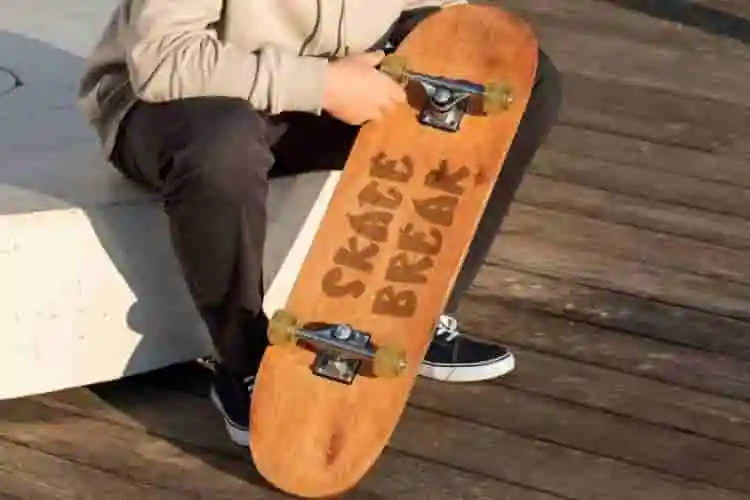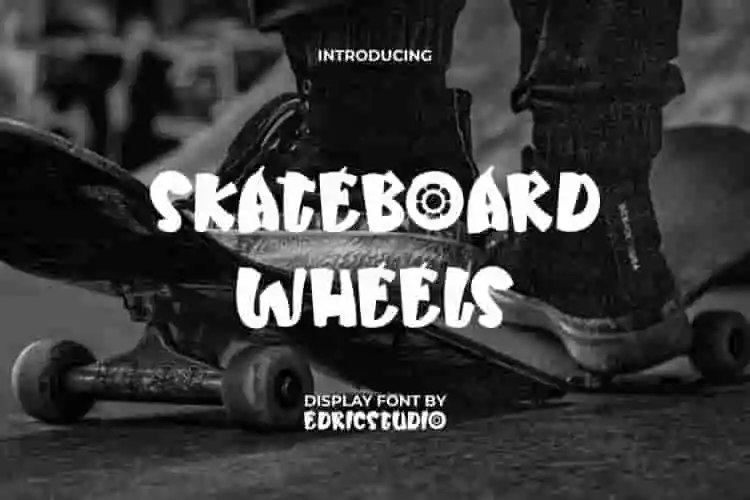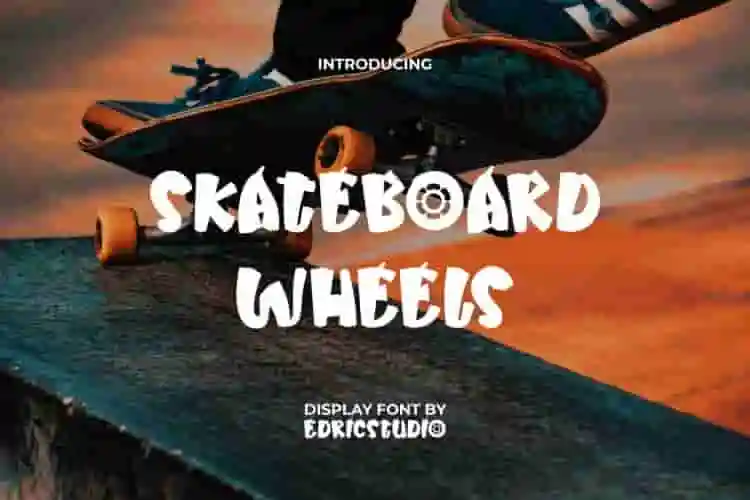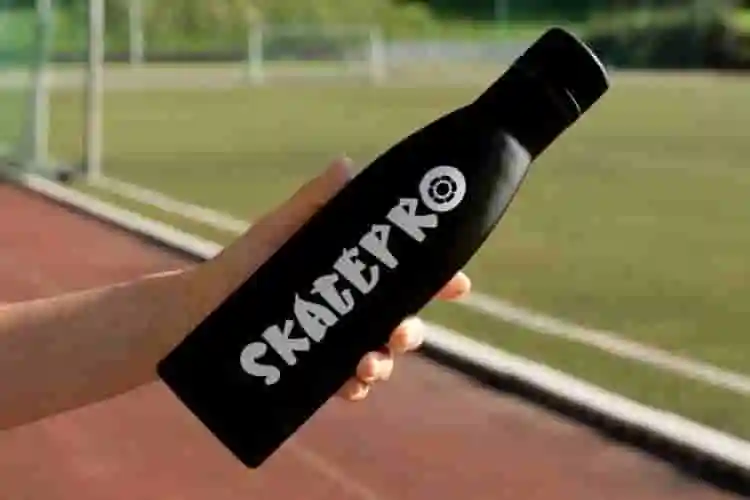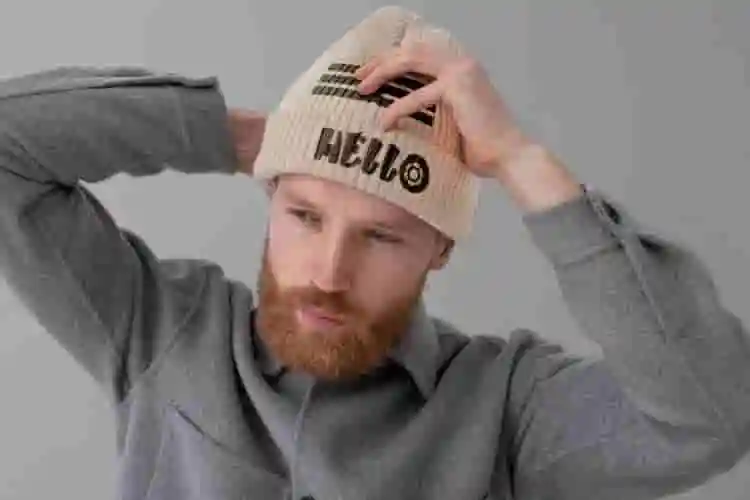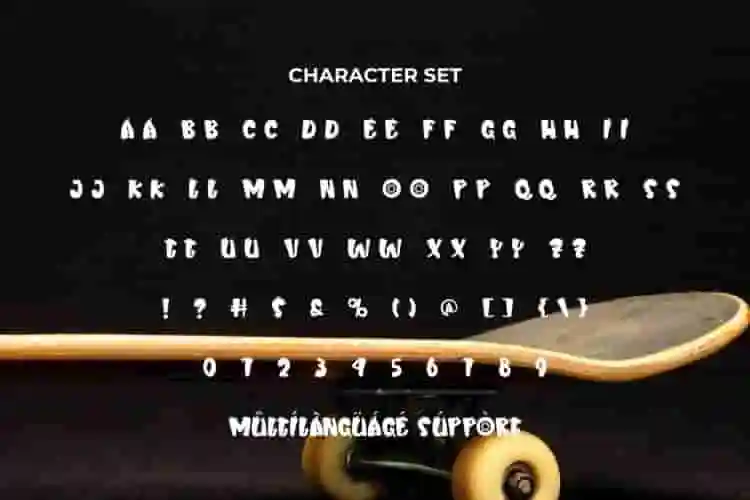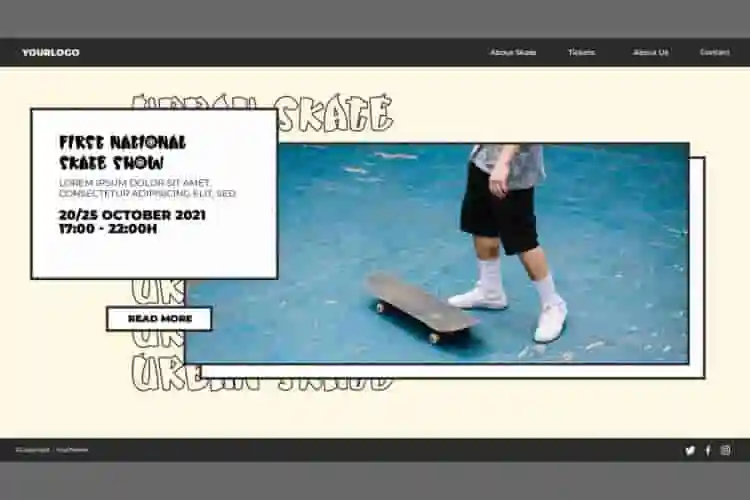
Skateboard Wheels Display Font
Skateboard Wheels Font is a cool decorative font with skateboarding theme. The font was made by EdricStudio with each character born with a creative and standout shape that will suit any industry, including: accessories, advertisement, clothing brand, event or festival, fashion designer, game, handicraft, homeware, menswear, movie, photography, printing, publishing, sport, and many more.
Skateboard Wheels Font comes with full set of ALL CAPS for both Uppercase and Lowercase Basic Characters, Number, a large range of Punctuation and Symbol. It has a stunning characters set, perfectly managed with well spaced and kerning. Skateboard Wheels Font will be able to complement for any project (with extended license) including: billboard, brand logo, brochure, header, label, packaging design, poster, screen print, stationery, sticker, website, etc.
Introducing Skateboard Wheels, a high-energy display font designed for bold creatives and edgy brands. Inspired by skate culture, graffiti, and streetwear, this font combines sharp angles and raw personality to bring your designs to life.
Whether you’re working on a skate brand logo, a music festival poster, or urban apparel, Skateboard Wheels adds the rebellious spirit and impact your project needs.
Ready to roll? Meet Skateboard Wheels, a bold and gritty display font inspired by the raw energy of skateparks, urban walls, and underground zines. It’s loud, fast, and full of character—just like the streets that shaped it.
Bring motion and energy to your designs with Skateboard Wheels, a dynamic display font inspired by the speed, freedom, and grit of street skating. With bold, angular letterforms and a slightly rough edge, this font captures the rebellious heart of skate culture and transforms it into bold, readable type.
• Perfect for Youth Culture
• Big Impact Letters